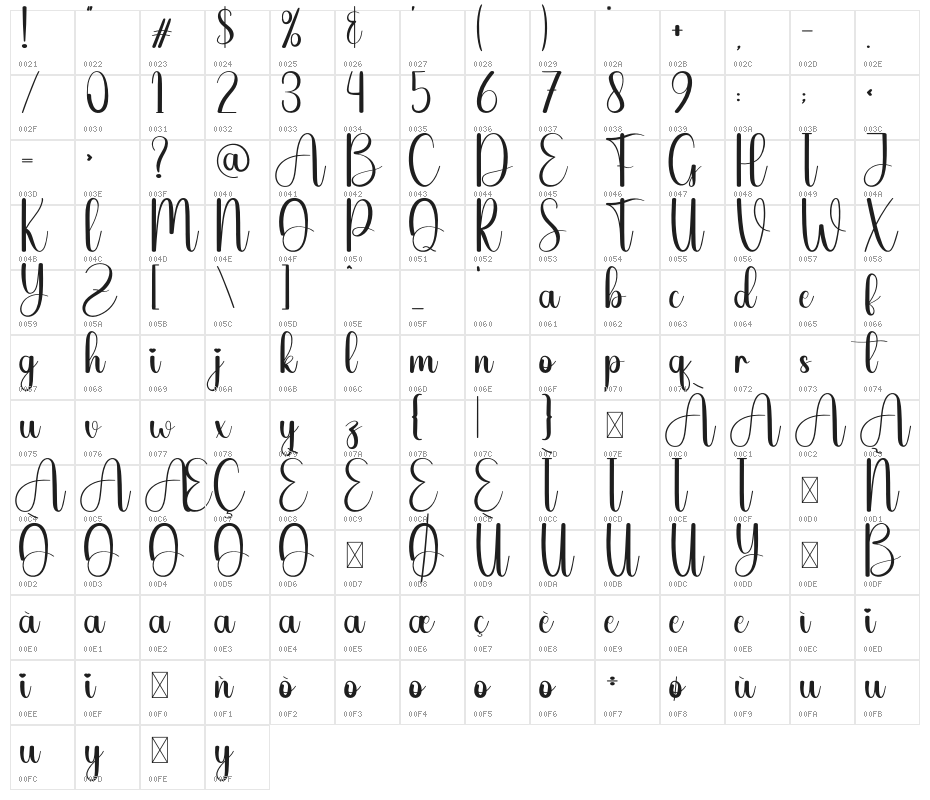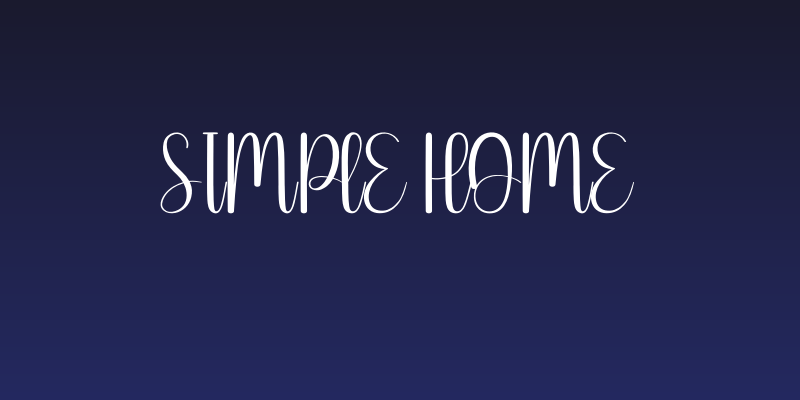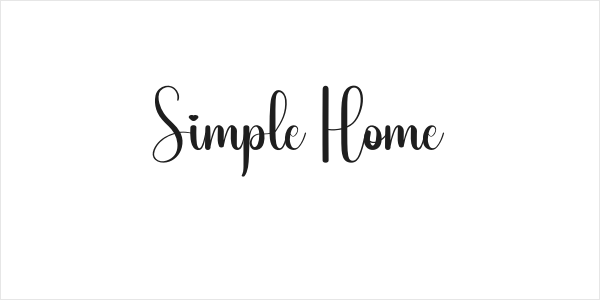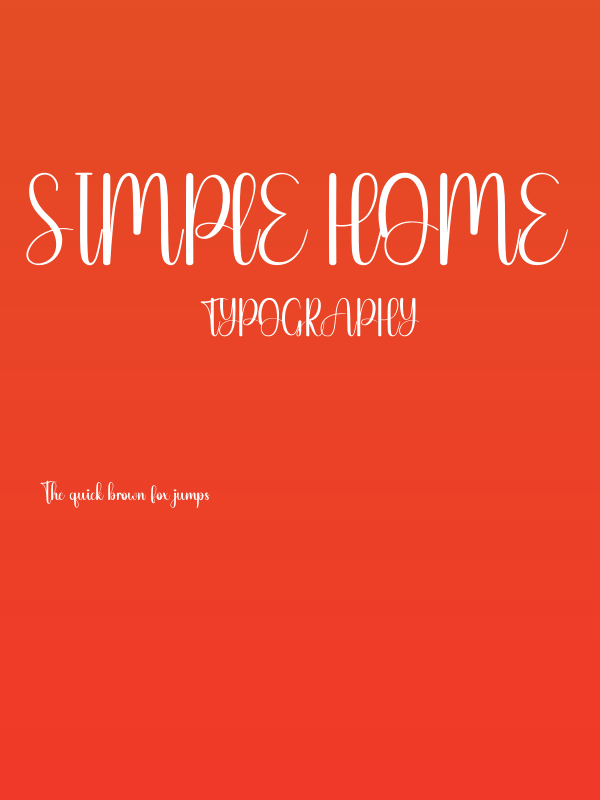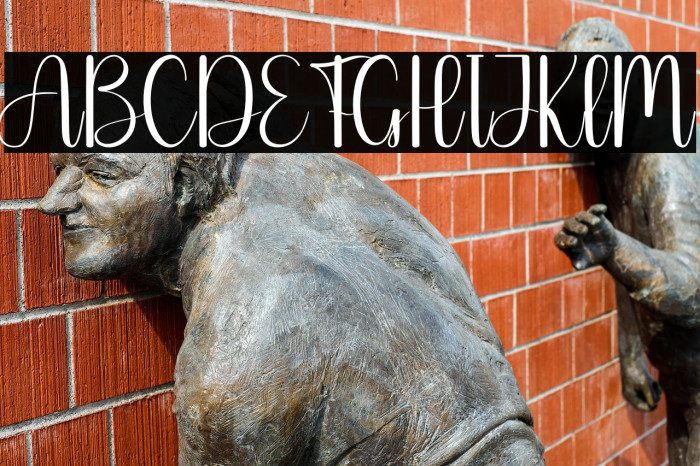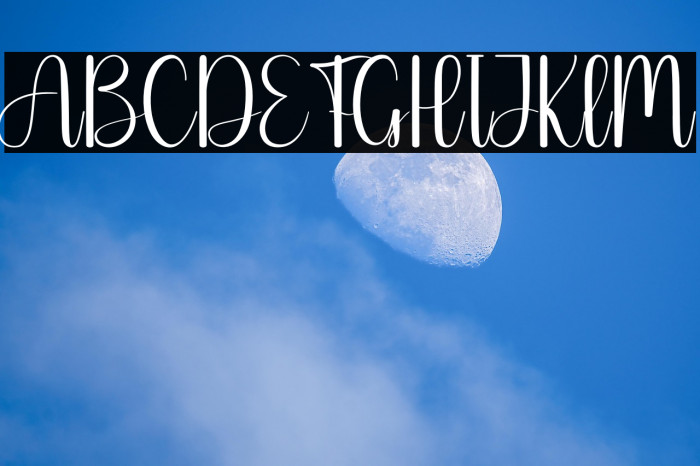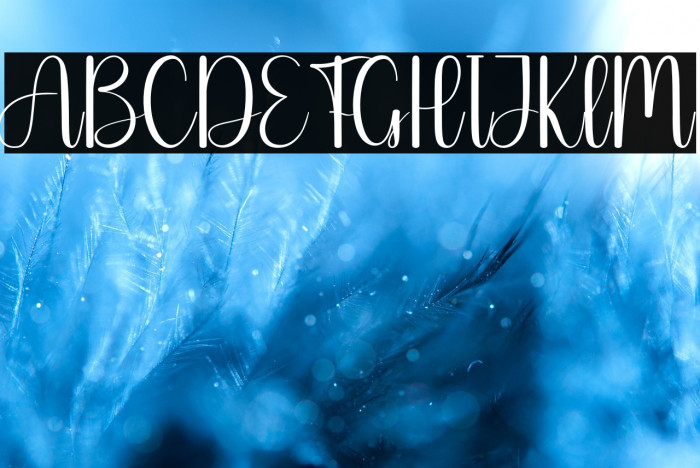
Simple Home Font
Simple Home Description
This font features a playful and elegant script style with a modern twist. The uppercase letters are characterized by their flowing, cursive lines that create a sense of movement and grace. The lowercase letters maintain a consistent style, with smooth curves and loops that enhance readability while adding a touch of sophistication. The numerals are designed with a similar flair, ensuring they complement the overall aesthetic. Special characters are seamlessly integrated, maintaining the font's cohesive look. The font's balance between decorative elements and legibility makes it suitable for a variety of creative projects.
| Proposed Projects | Ideal for wedding invitations, branding, greeting cards, and elegant packaging designs. |